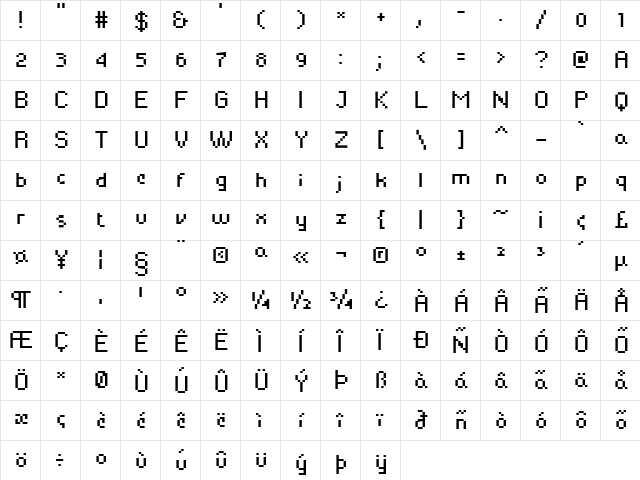
Yapix Regular Free Font
Yapix Regular
Foundry: Fabiane Lima
Designer: Fabiane Lima
Design Context for Yapix
Yapix is a composed and adaptable typeface that performs quietly and consistently across a wide range of design contexts.
Who designed the Yapix Regular font?